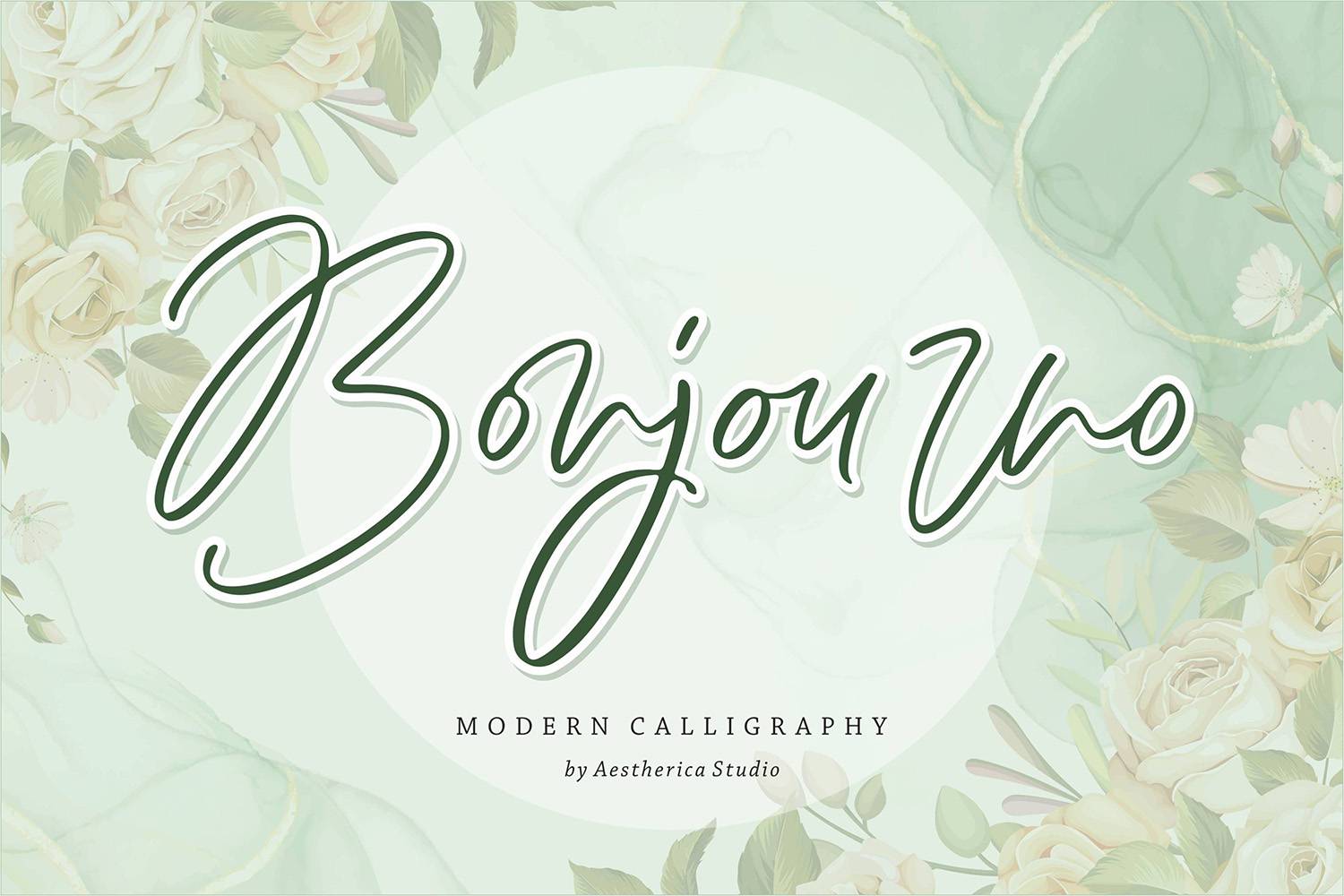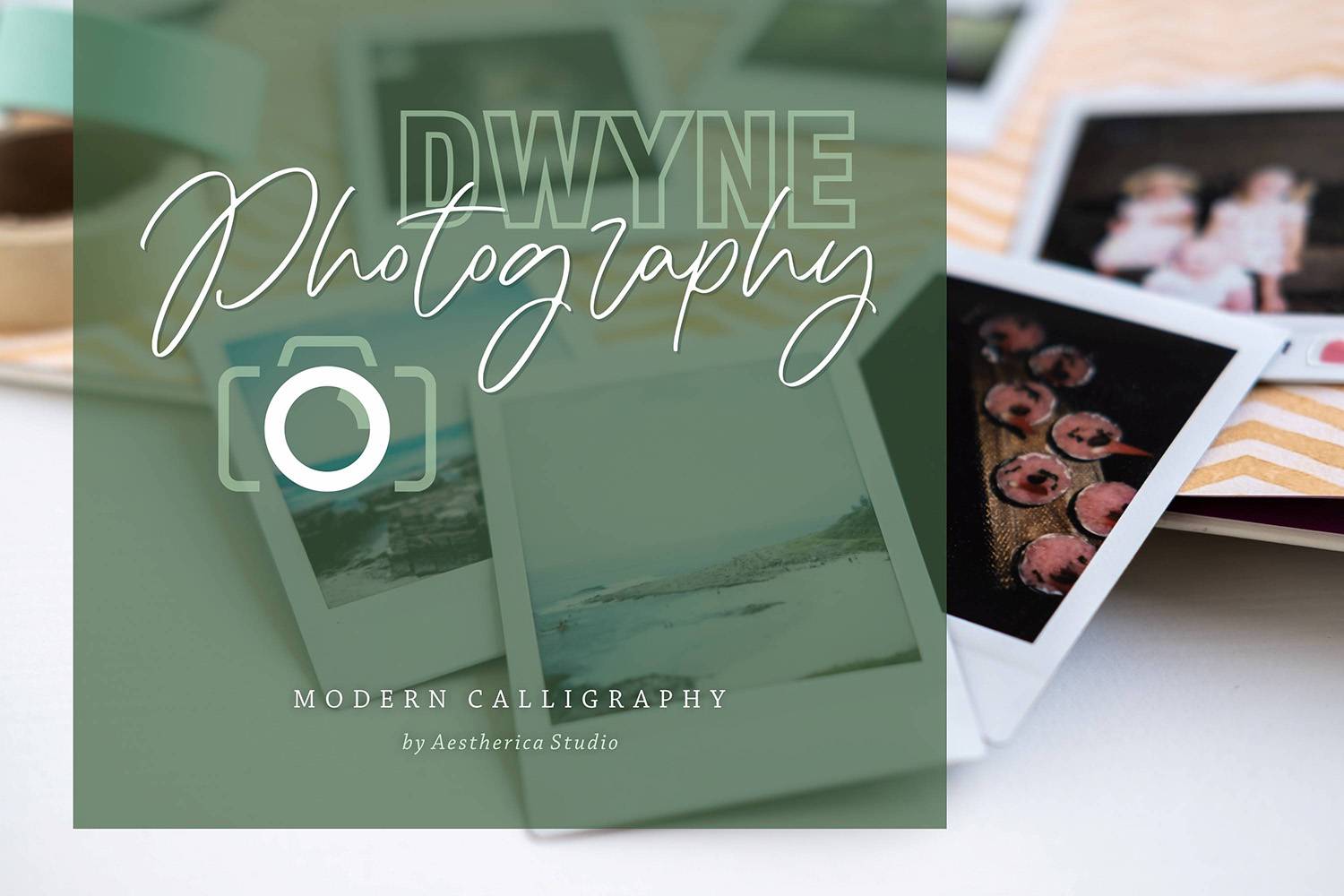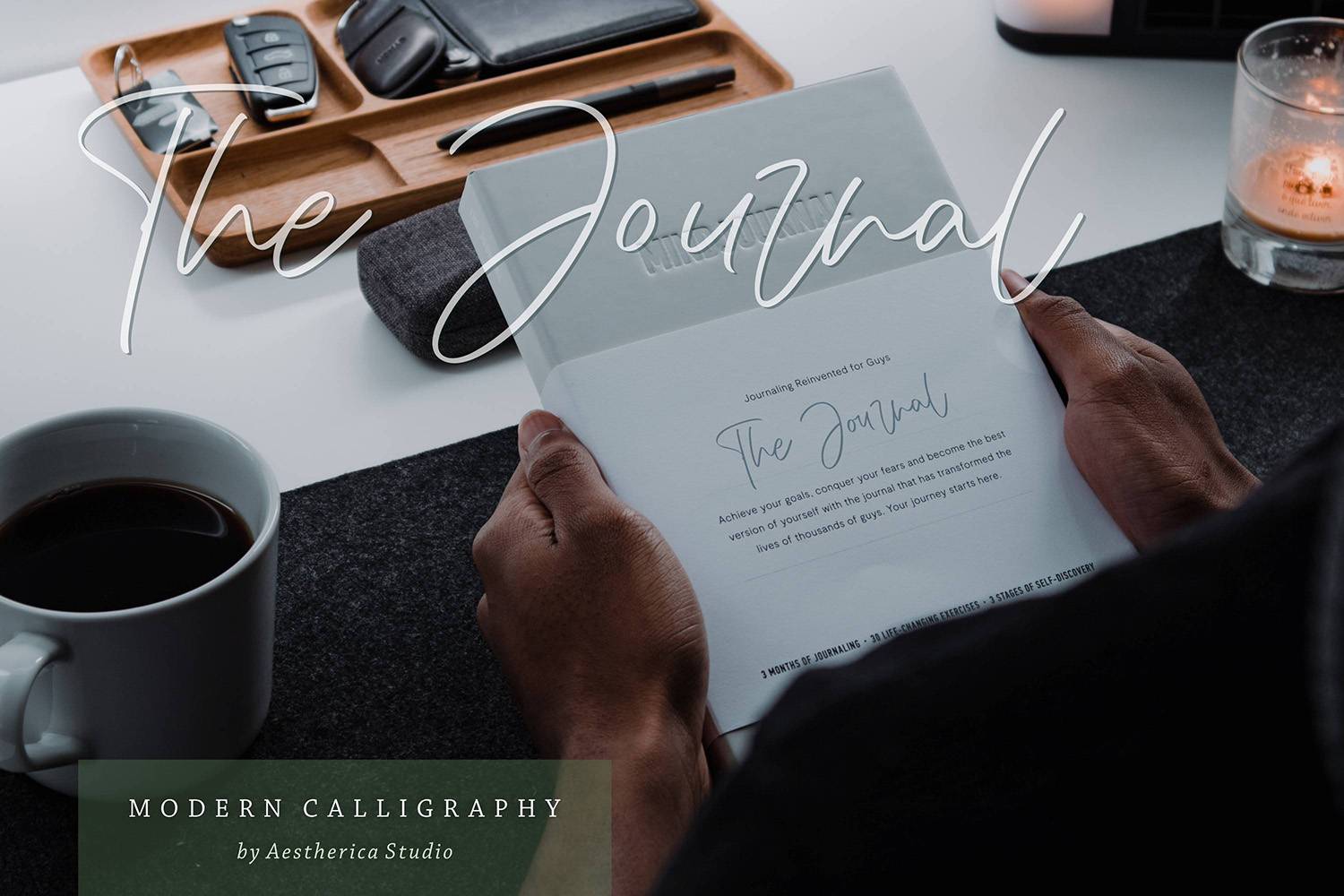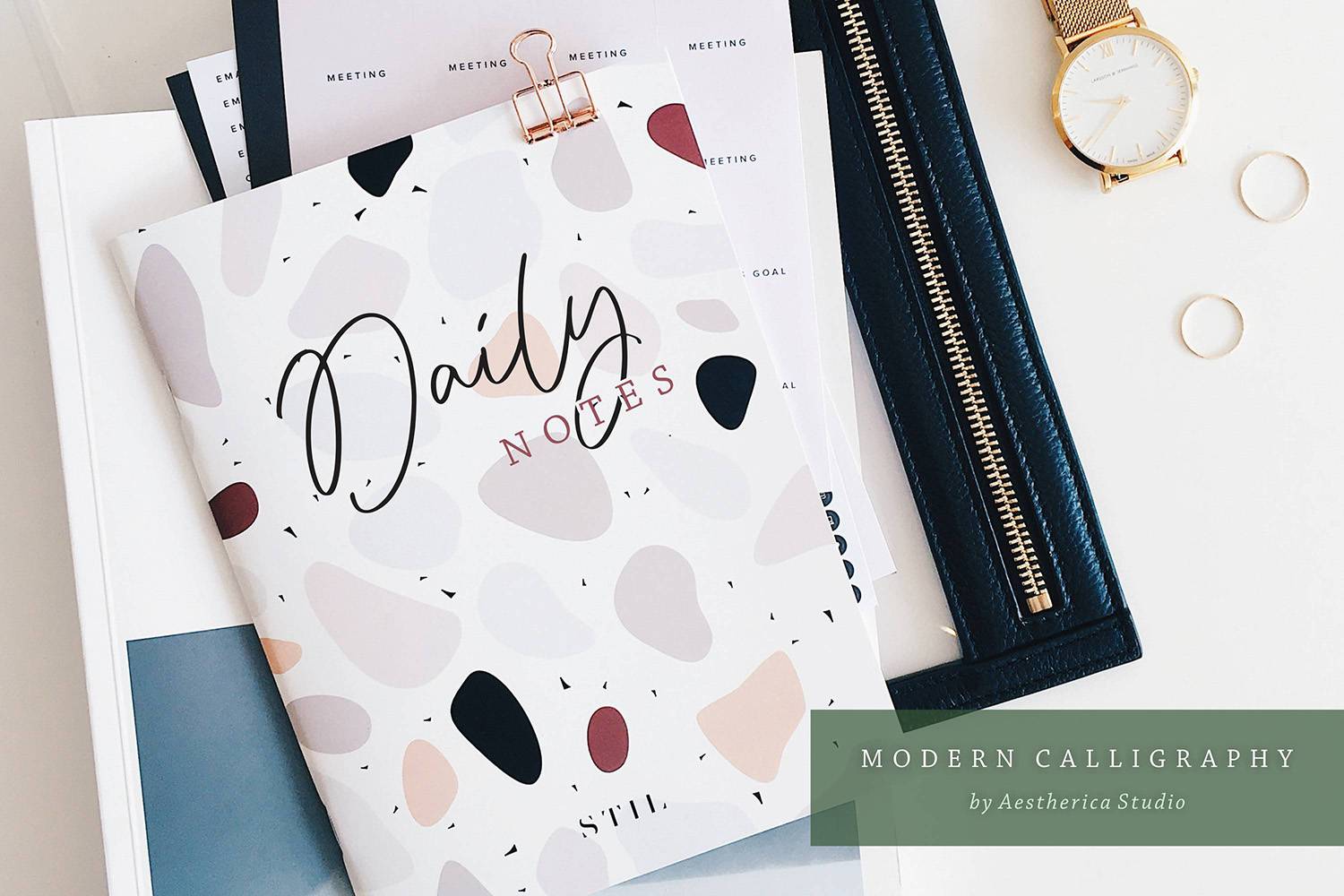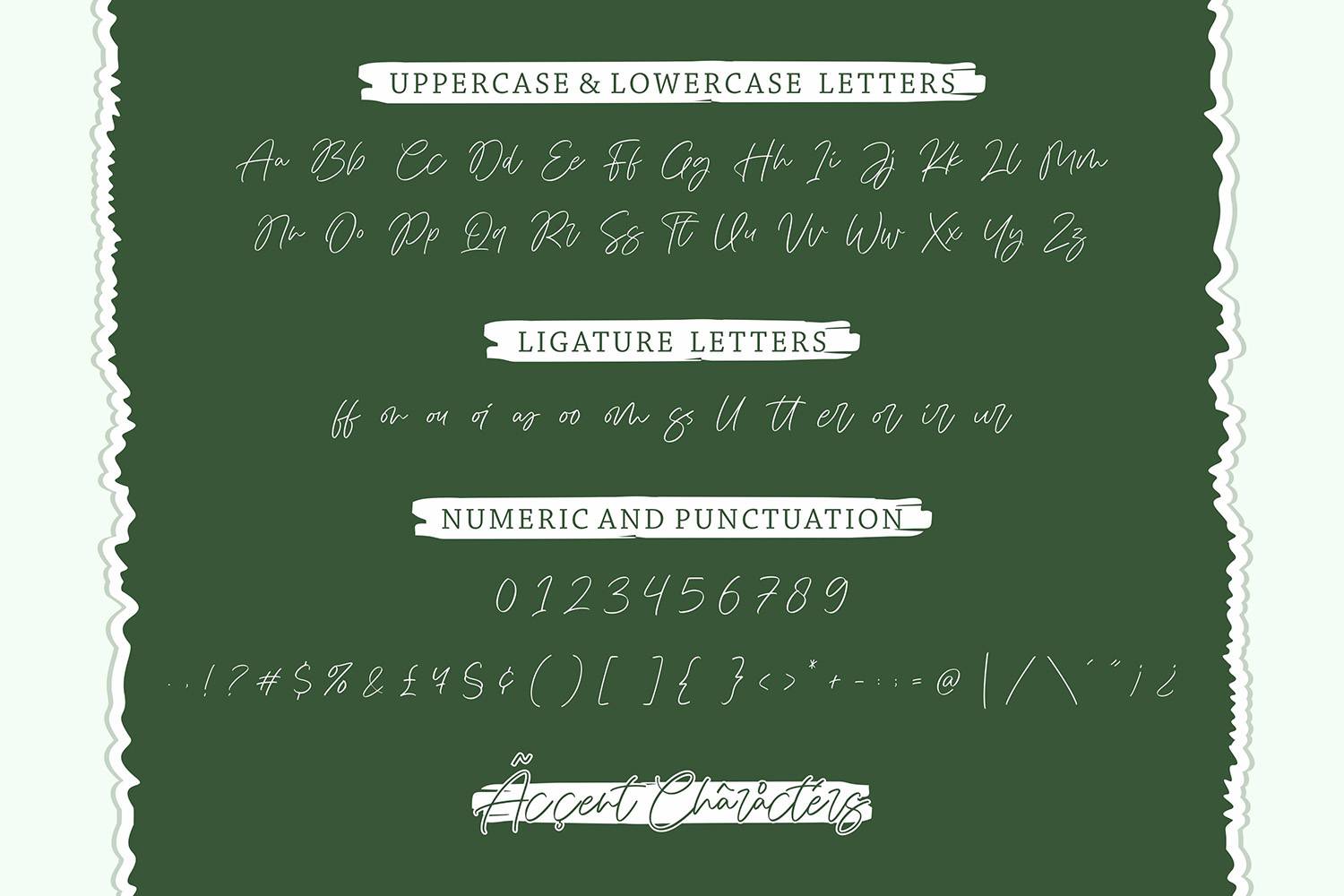
Bonjourno is a delicate, elegant script font with a light and airy handwritten style that offers a refined yet casual feel. Its slender, flowing strokes and slightly varied line weight create a natural, sophisticated look, making it perfect for personal branding, invitations, and stylish editorial headlines where a touch of graceful personality is desired. This font works well in designs that need a soft, artistic, and approachable tone without sacrificing elegance.
Bonjourno Font
About Bonjourno Font